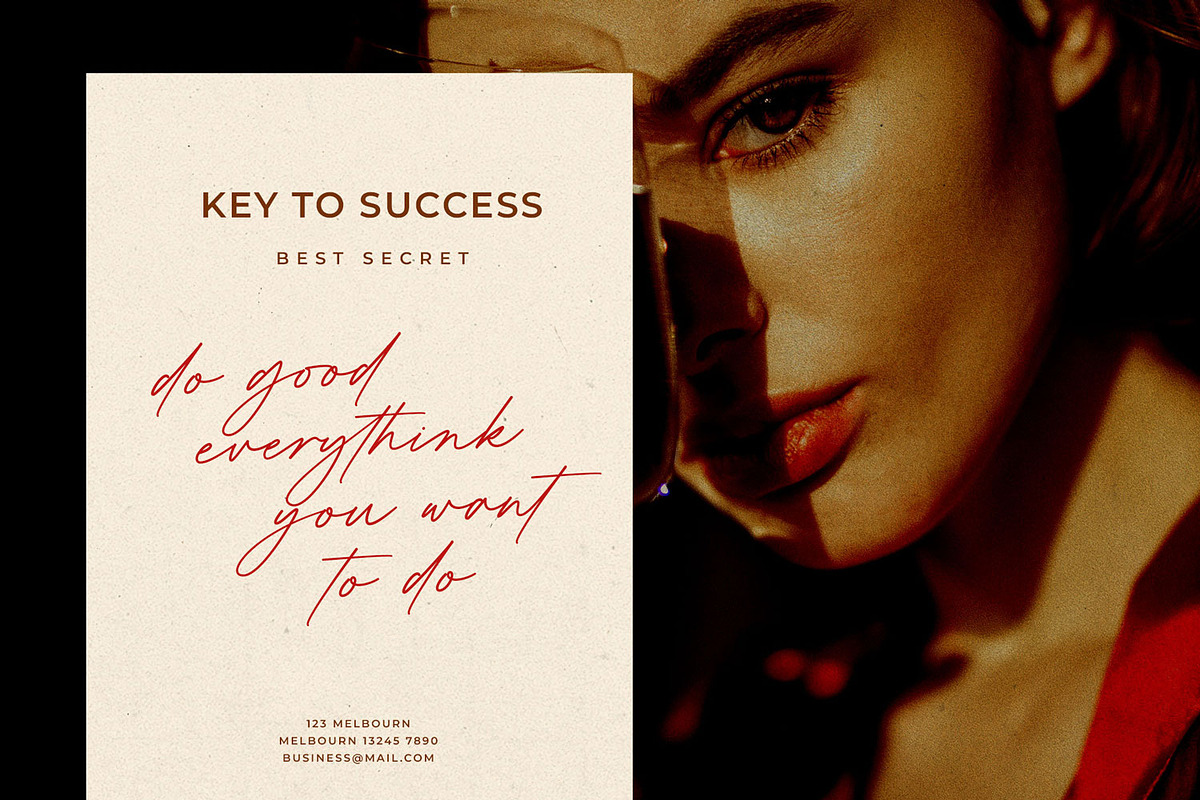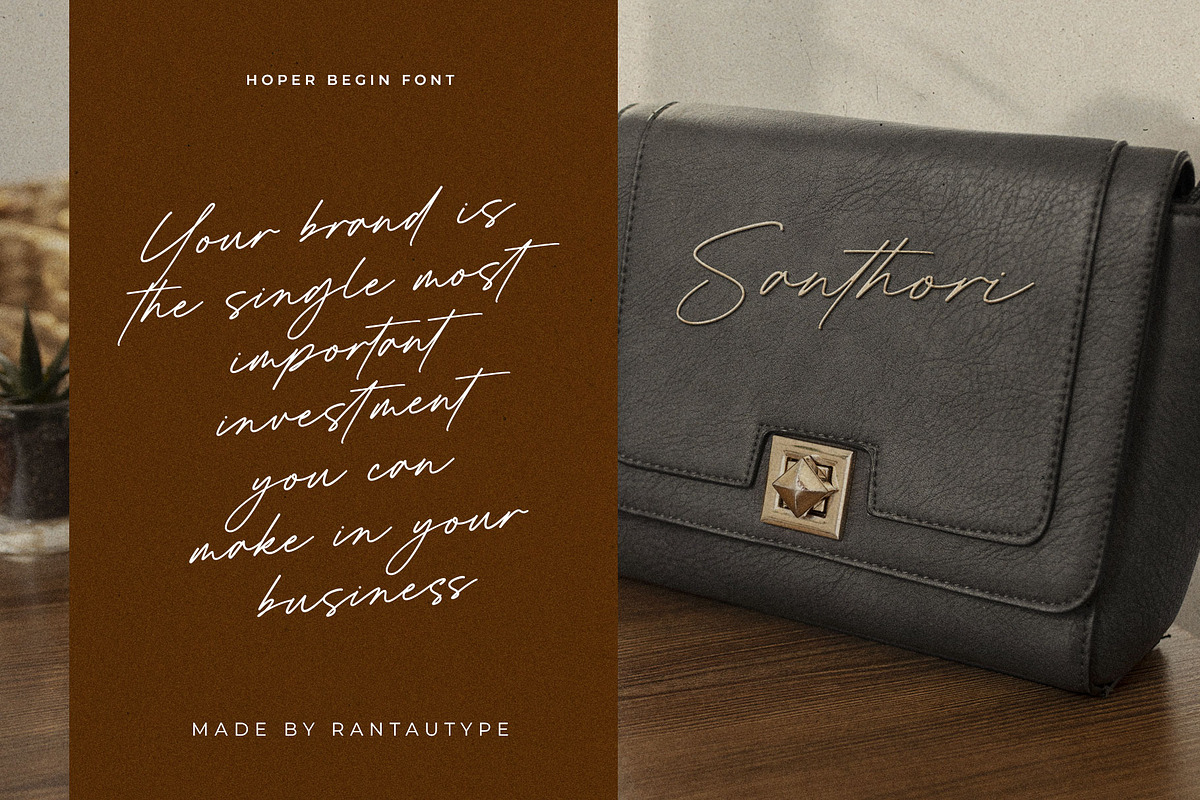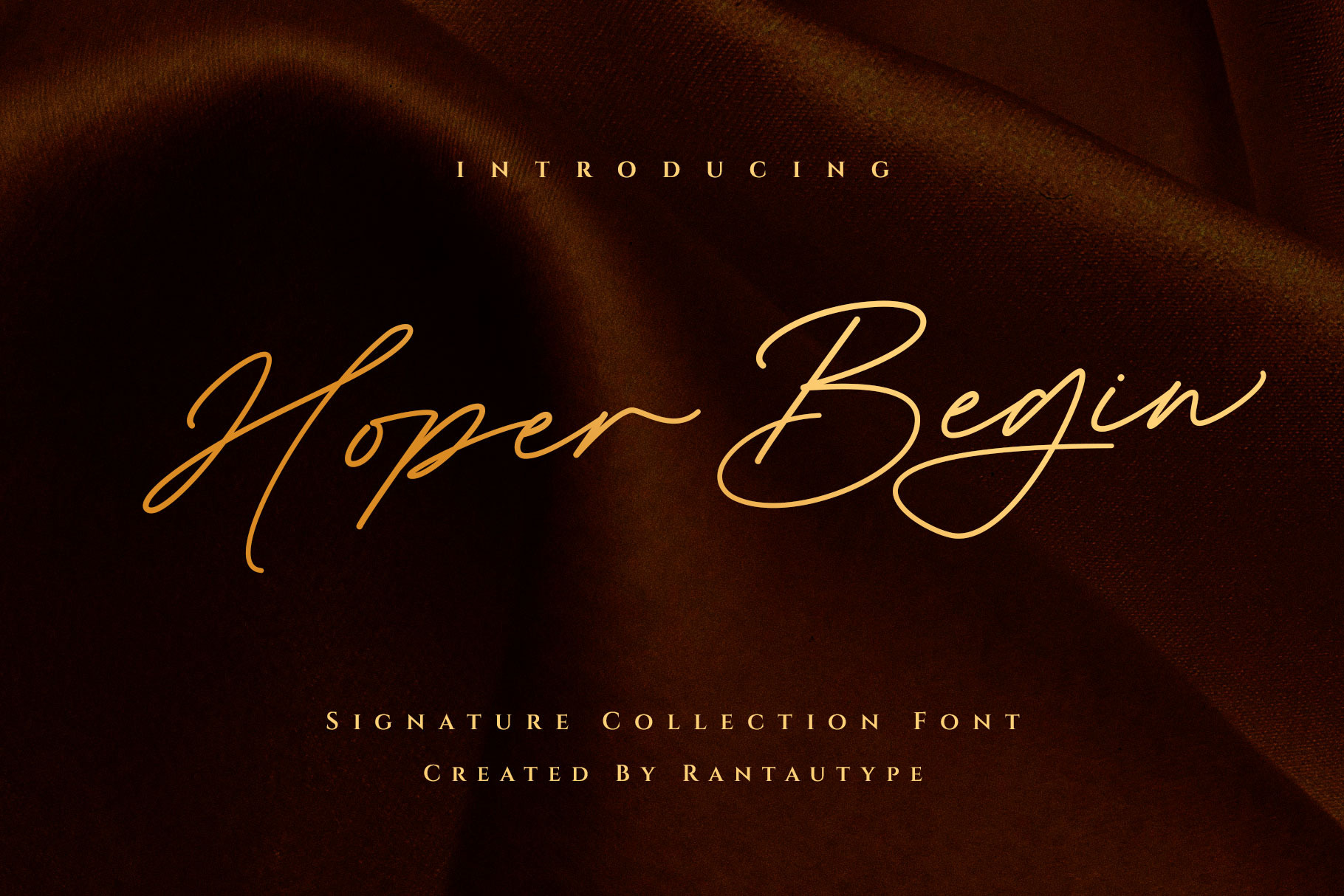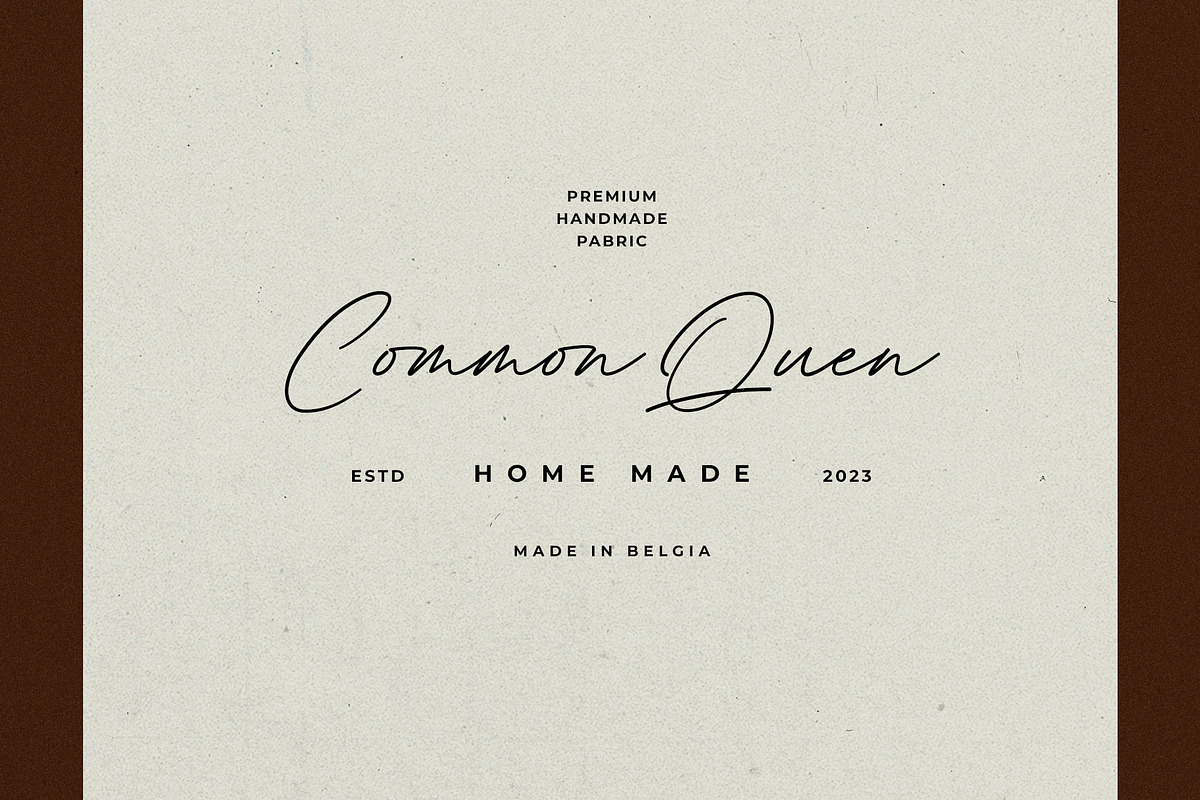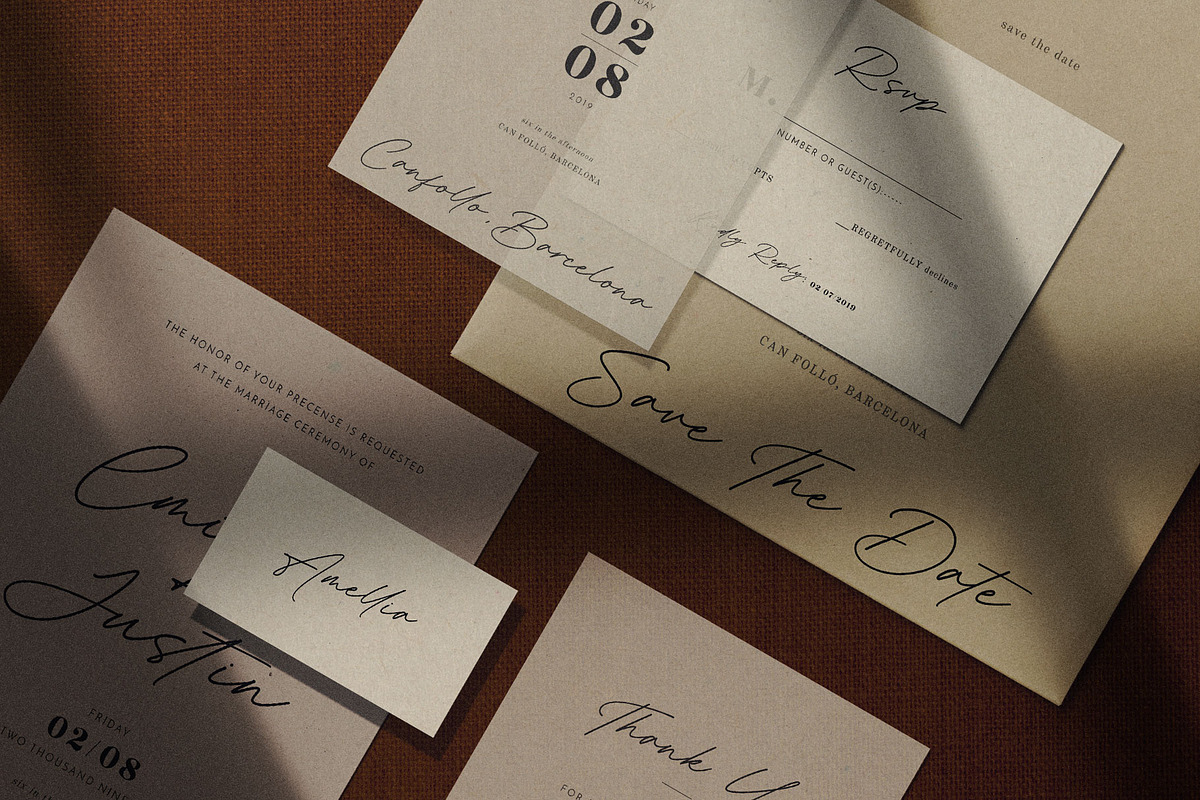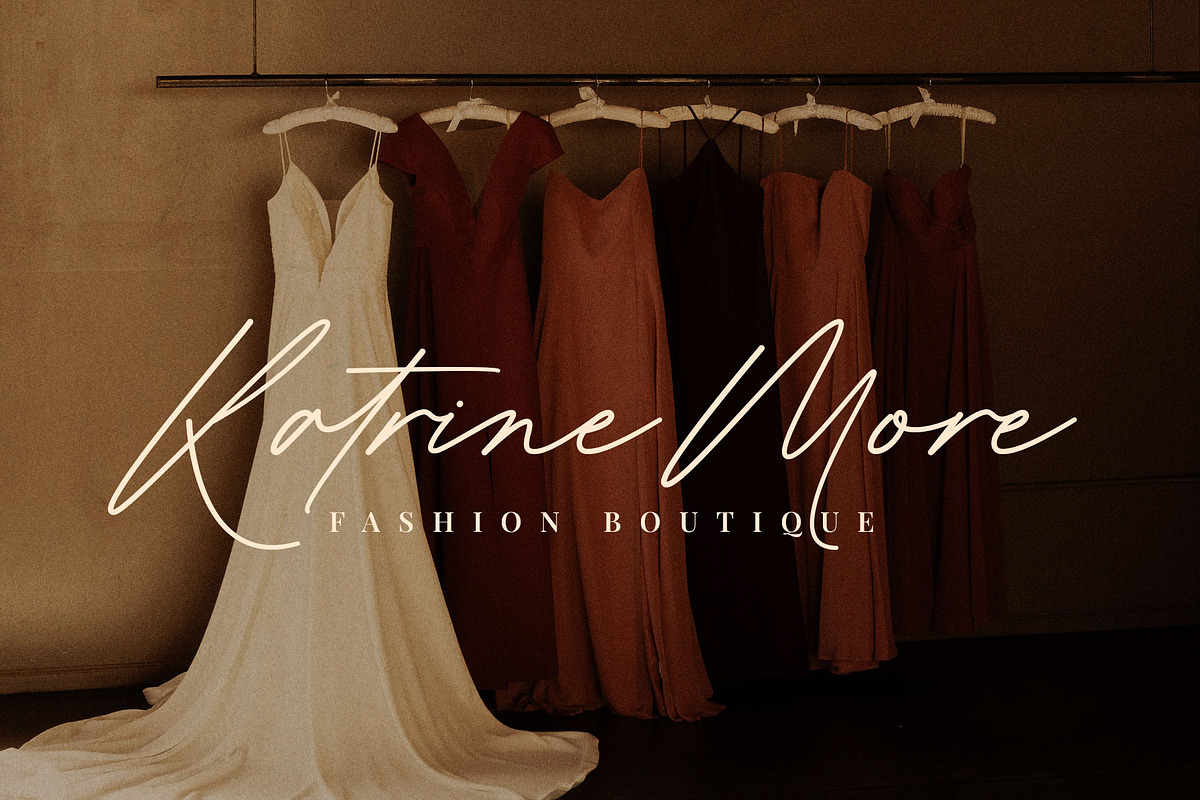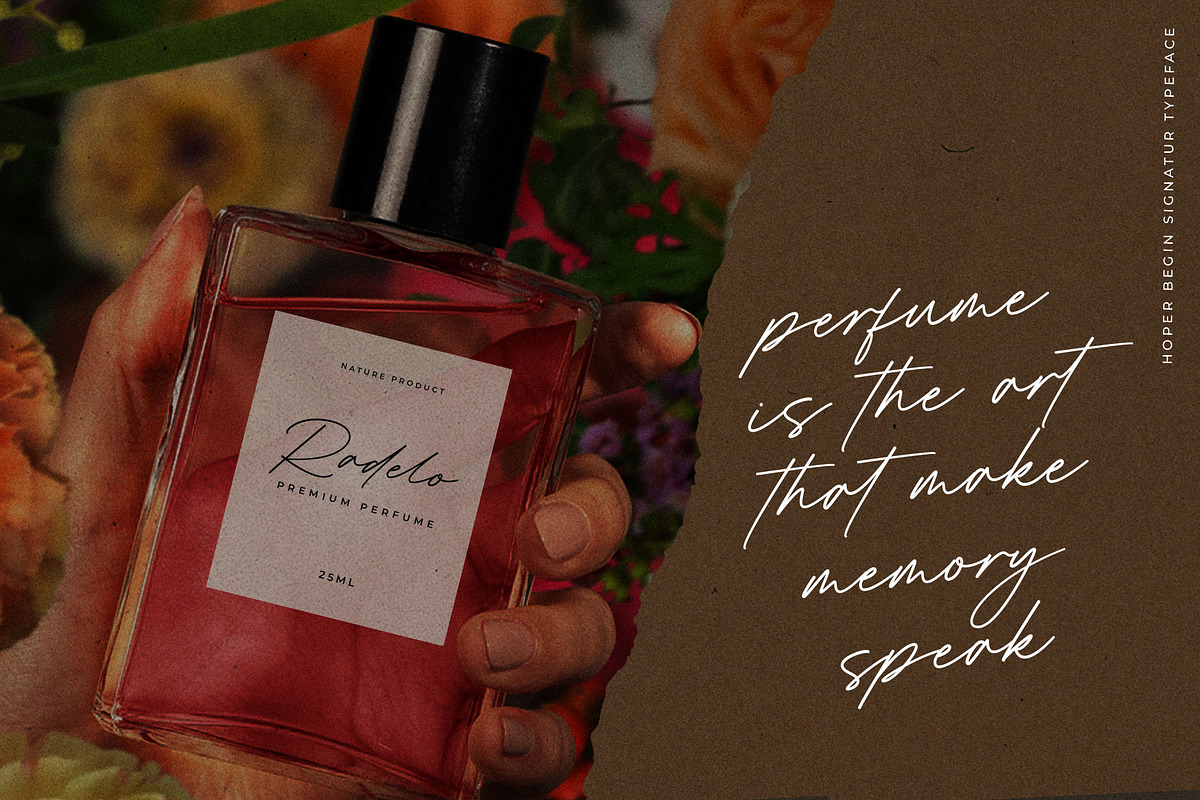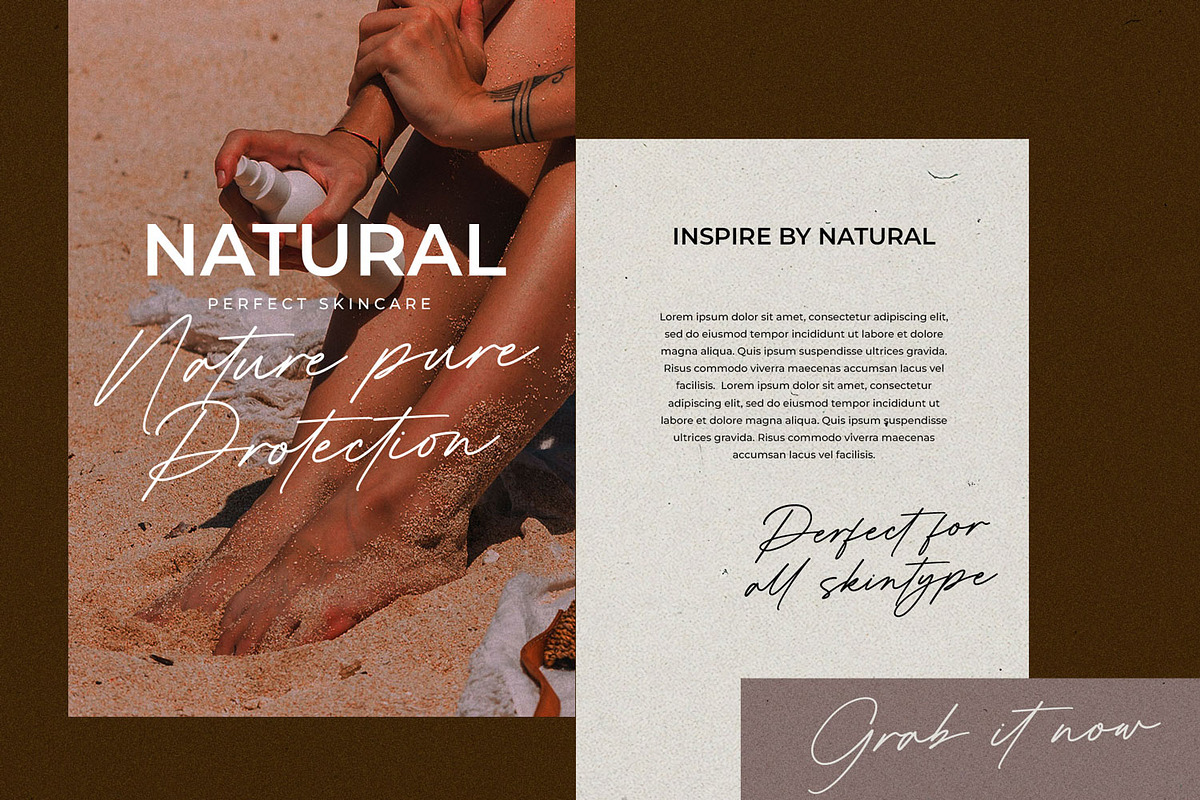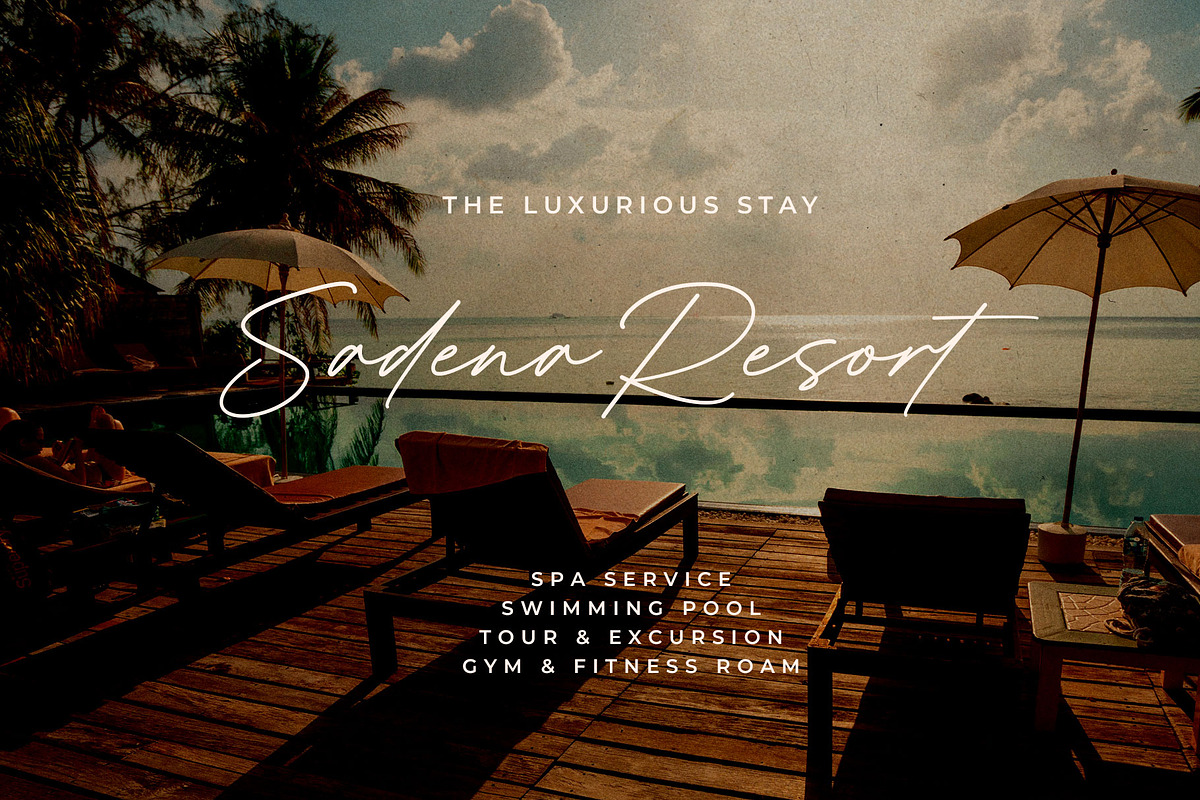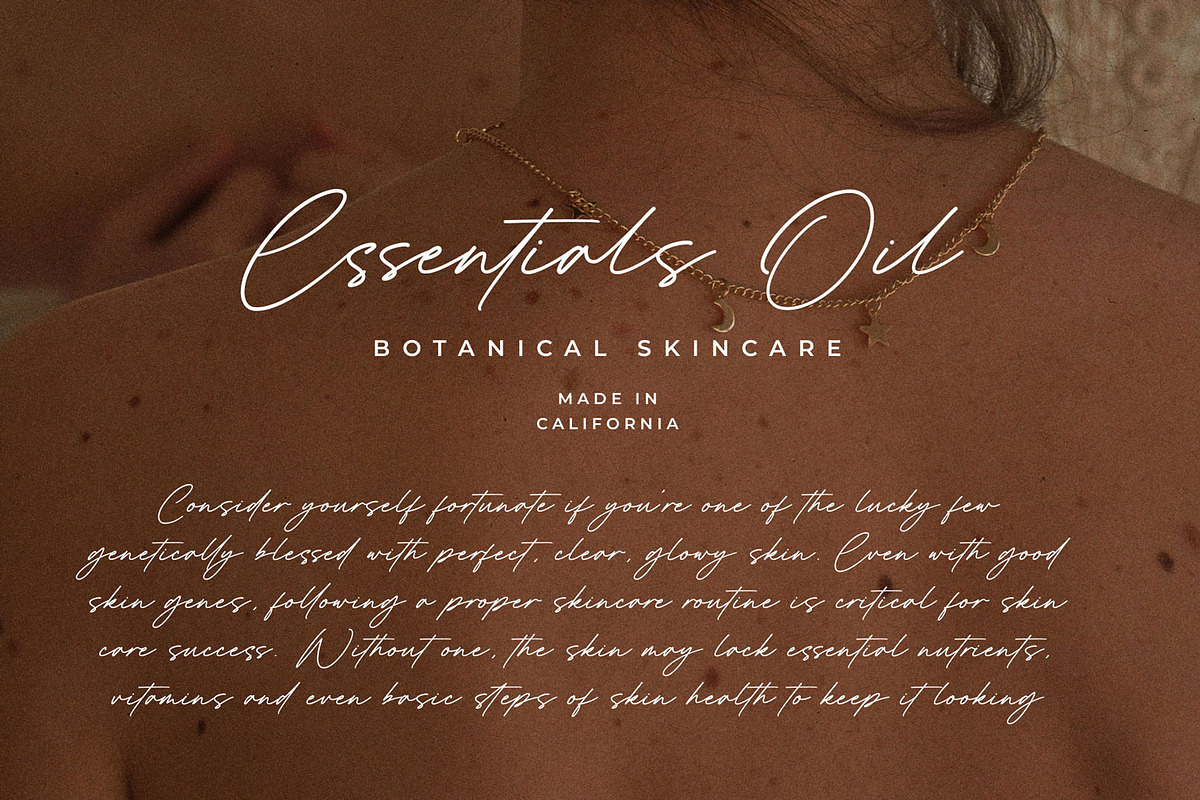
Hoper Begin Handwritten Font
Hoper Begin is modern and creative business font which can be interpreted professional with stylish and natural curve. We keep this font looks modern, minimalist, elegant, readable, stylish, catchy and easy to use. Hoper Begin come with ligature, alternate and multilingual accent support.
Hoper Begin is a beautiful choice for any creative endeavor, chic, lifestyle design such as logos, title, watermark on photography, cover, branding, display and magazine, wedding event, quotes, album cover, business card, corporate, business project and many other design project. Hoper Begin here to make your work stand out!!
- Standar character A-Z and a-z
- Ligature and alternate
- Multilinggual accent support